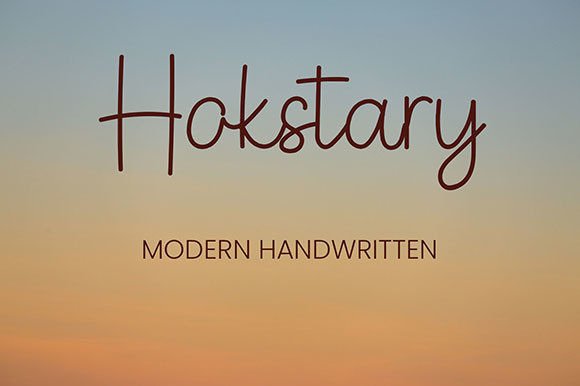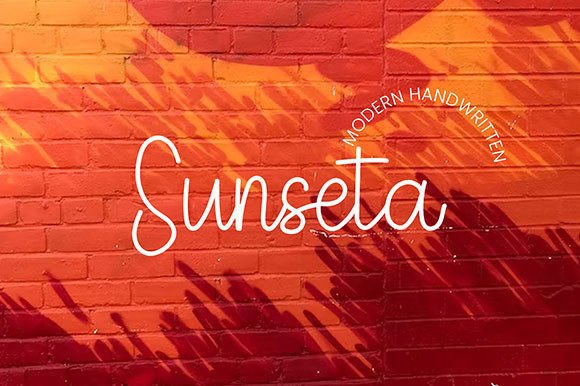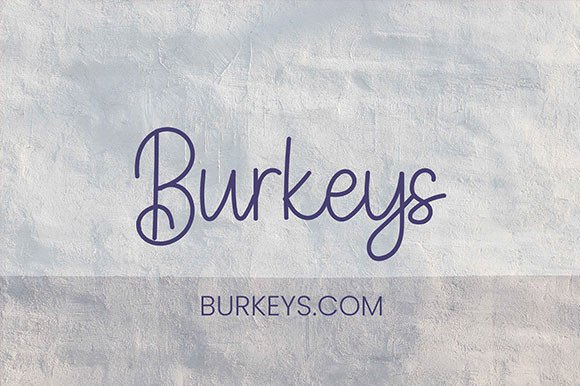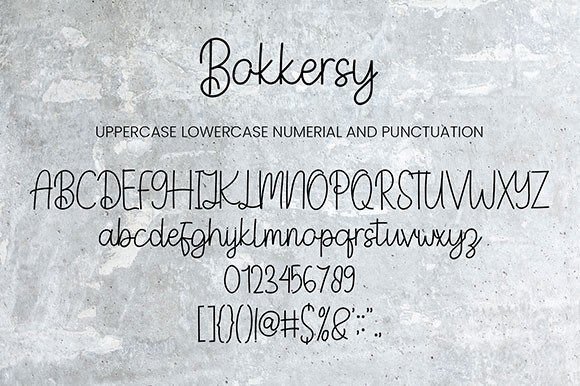
The Perfect Script: Discovering Bokkersy Font
Have you ever found yourself sitting at your desk, surrounded by papers, glue, and scattered ideas, searching for the perfect font to bring your creative project to life? This is exactly what happened to many designers when they stumbled upon the Bokkersy Font – a casual and neat handwritten script font that has taken the design world by storm.
Bokkersy Font is more than just a pretty face; it’s a versatile tool that can be used for a variety of projects, from crafts and digital design to presentations and greeting cards. Its unique charm and effortless style make it a valuable addition to any designer’s toolkit, and its potential to become your go-to font is undeniable.
Bokkersy Font Key Features
- Unique Characteristics: Bokkersy Font features a unique, handwritten style with a mix of cursive and print letterforms, making it ideal for creative and artistic applications.
- Language Support: The font includes comprehensive language support for Latin-based languages, including English, Spanish, French, German, Italian, and many others.
- Kerning and Ligatures: Bokkersy Font includes advanced kerning and ligature pairs to ensure smooth text flow and optimal readability.
Bokkersy Font Review
I recently had the chance to work with the Bokkersy Font, and I must say, it’s an interesting addition to any design project. Here’s my honest take on this font:
- Unique Design: Bokkersy Font has a quirky, hand-drawn feel that sets it apart from more traditional fonts.
- High-Quality Rasterization: The font renders beautifully in both print and digital formats, ensuring a crisp and clean appearance.
- Supports a Wide Range of Languages: Bokkersy Font covers a vast number of languages, making it a great choice for global projects.
- Limited Character Set: Bokkersy Font’s character set is not as extensive as some other fonts, which may limit its usability in certain situations.
- Lack of Italic and Bold Variations: While the font’s unique style is a major selling point, the lack of italic and bold variations can be a drawback for designers who rely on these styles.
Overall, Bokkersy Font is a solid choice for designers looking to add some personality to their projects. While it has its limitations, its unique design and high-quality rasterization make it a worthwhile addition to any font library.
Tips for Getting the Most Out of Bokkersy Font
Use Bokkersy Font for titles, headings, and emphasis in your designs.
Pair Bokkersy Font with other bold, sans-serif fonts for a striking contrast.
Experiment with different font sizes and styles to achieve the desired visual effect.
Bokkersy Font is ideal for:
- Restaurant menus and food labels.
- Brand logos and identity designs.
- Headings and titles in digital products.